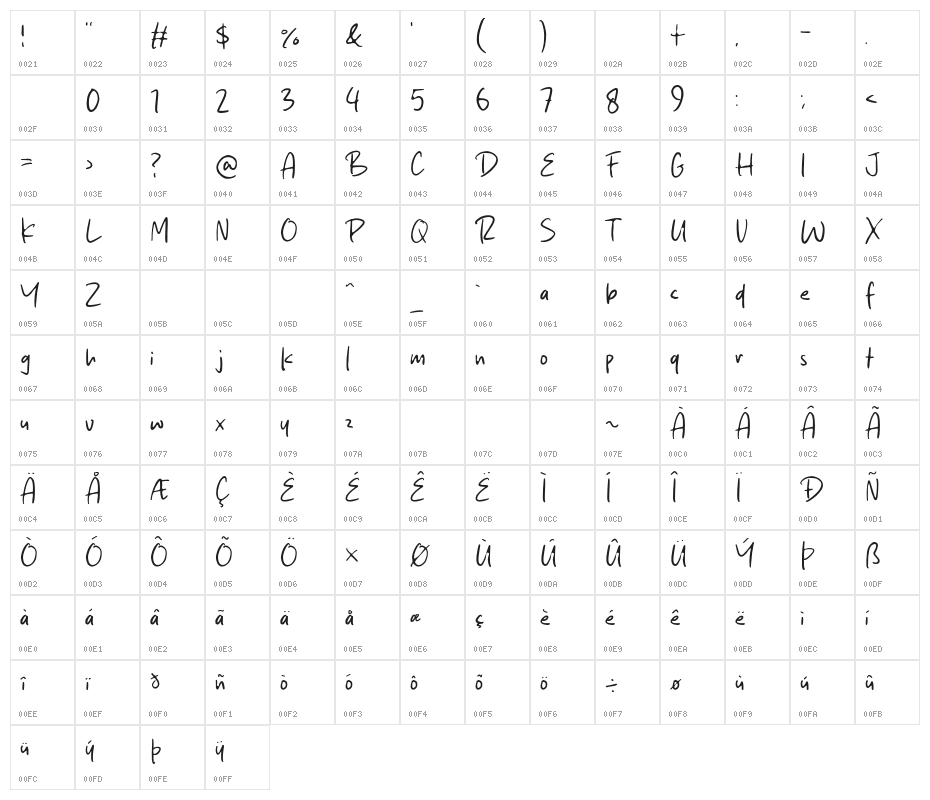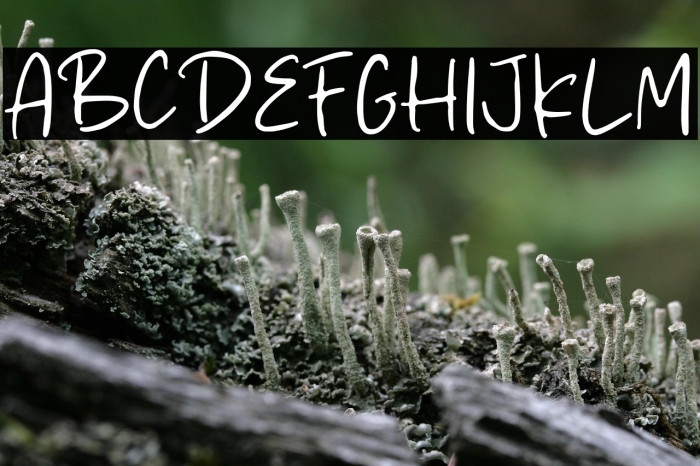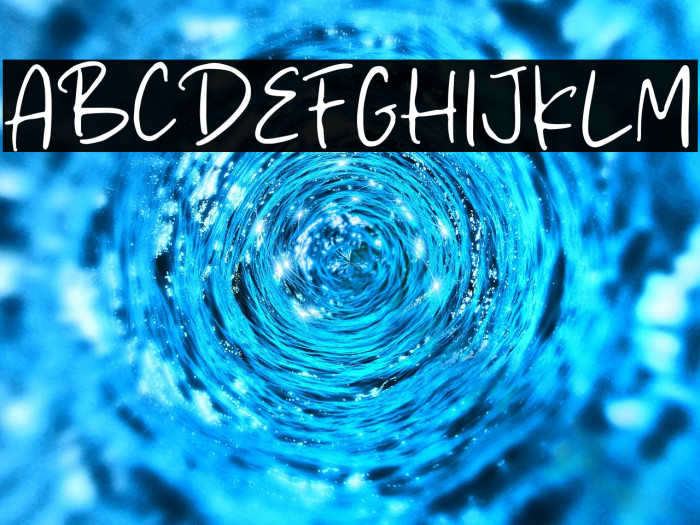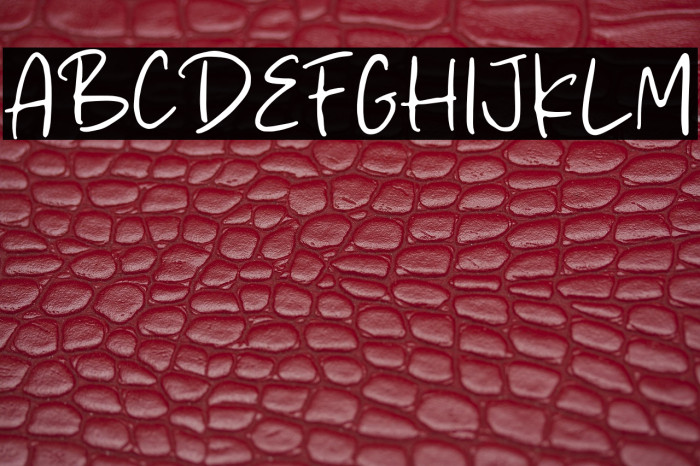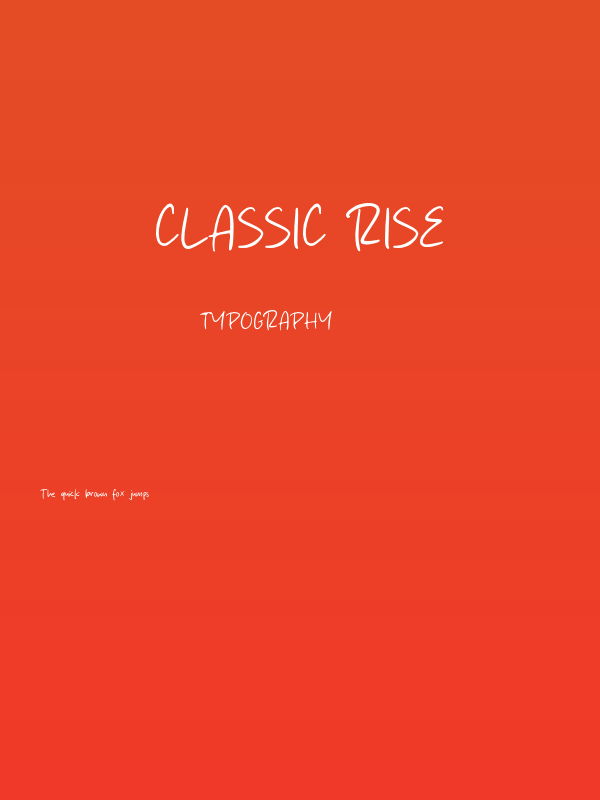
Classic Rise Font
Classic Rise Description
This font features a casual, handwritten style with a natural flow and slight irregularities that give it a personal touch. The letters are slightly slanted, adding to the informal and approachable feel. The uppercase and lowercase characters maintain a consistent style, with rounded edges and varying stroke widths that mimic the look of handwriting. The numerals and special characters follow the same aesthetic, ensuring a cohesive appearance across all text. This font is ideal for projects that require a personal or informal tone.
| Overall Style | Casual |
| Use Case | Logos, Invitations, Greeting cards |
| Proposed Projects | Ideal for personal notes, invitations, greeting cards, and informal branding projects. |